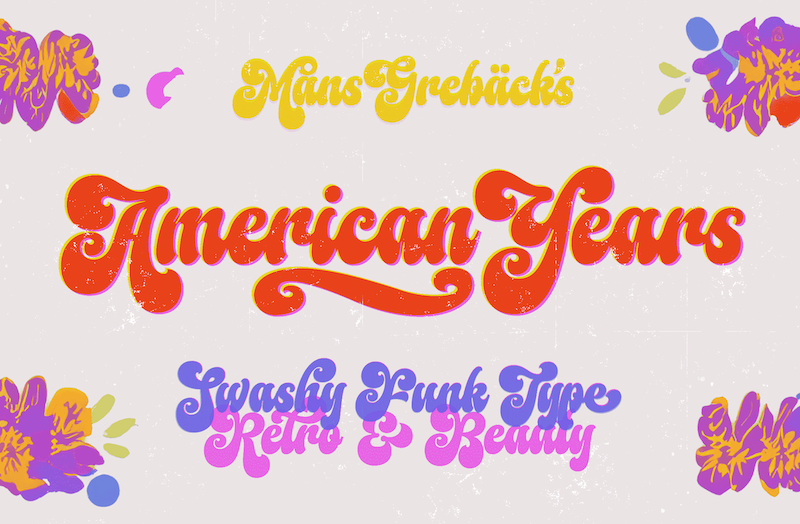
Preview and download American Years Font. Created by Måns Grebäck in Script Old School styles with Free for personal use license.
NOTE: This font is for PERSONAL USE ONLY! To purchase a commercial license, visit: http://mn.sg/american-years American Years is a font dipped in the '70s. Like a vinyl, it's nostalgic, authentic, and full of character. Use underscore _ after any word to make a swash. Example: Retro_ Use multiple underscores for a longer tail. Example: Funkie____ For questions, please visit www.mansgreback.com/faq |